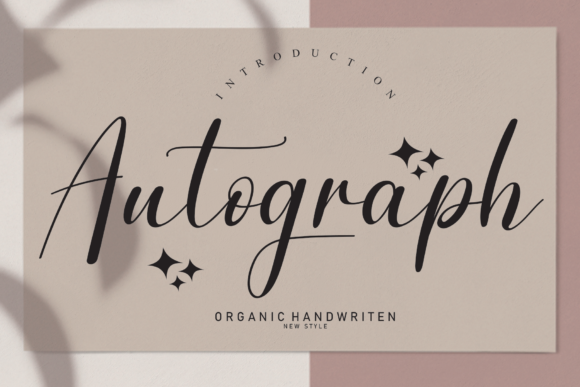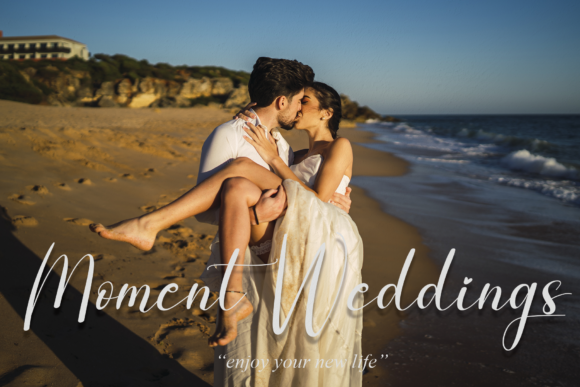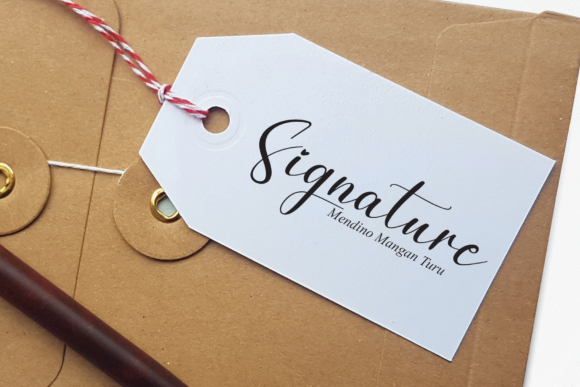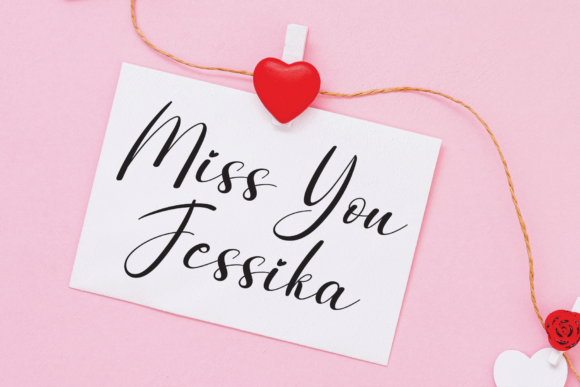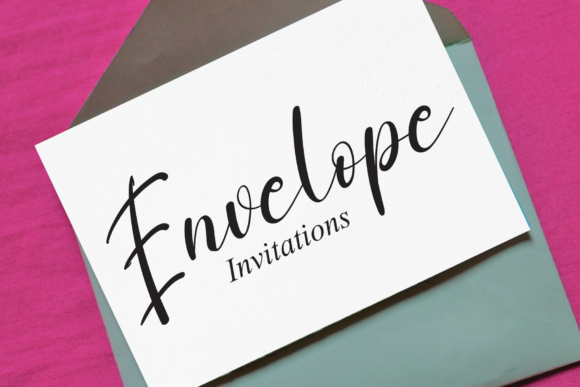
Autograph Font
About Autograph Font
Autograph is a gentle and dainty handwritten font that features sweet and delicate swashes. This versatile look will appeal to a wide range of crafty ideas, from letterheads and titles, to stationery.